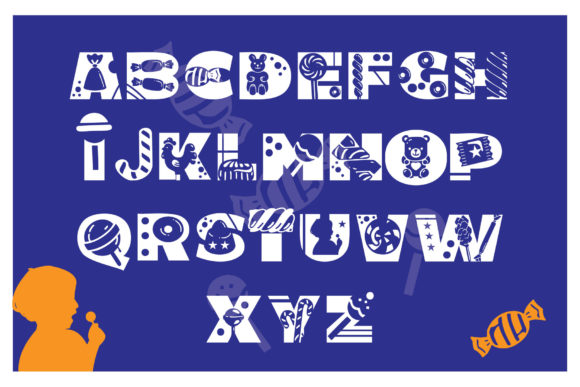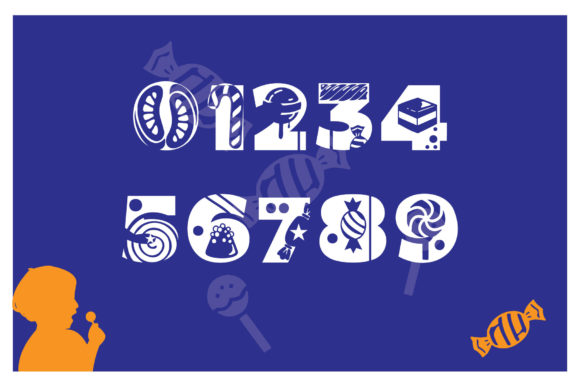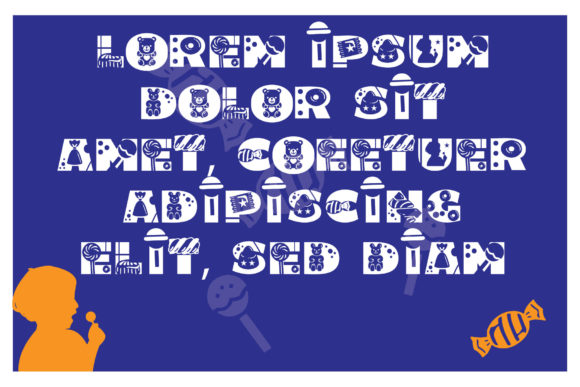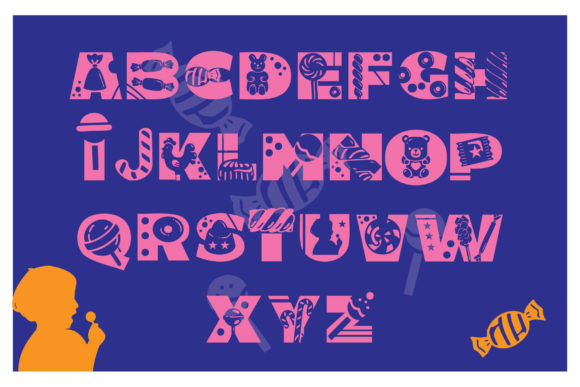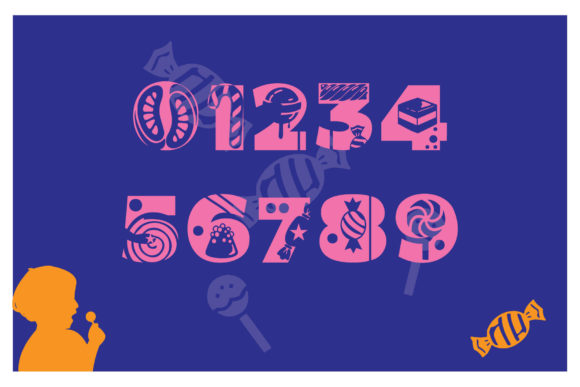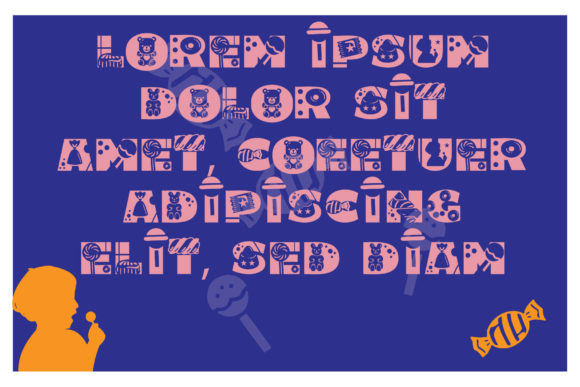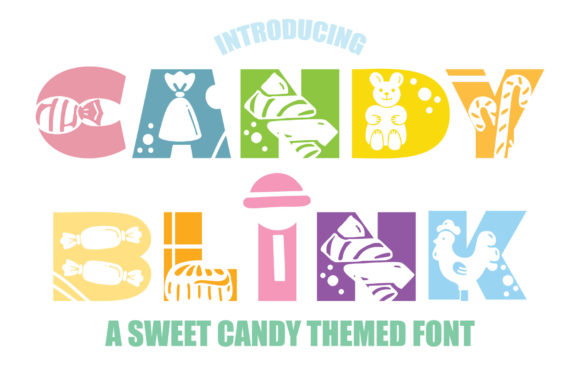
Candy Blink Font: The Sweetest Addition to Your Design Projects
Are you looking for a font that can add a touch of fun and playfulness to your designs? Look no further than the Candy Blink Font! This cool and thick lettered decorative font is perfect for a variety of friendly or casual designs, and can be used with confidence to add a professional touch to your projects.
What is Candy Blink Font?
Candy Blink Font is a unique and eye-catching font that features thick, bold letters with a playful and whimsical feel. Its distinctive design makes it stand out from more traditional fonts, and its versatility ensures that it can be used in a wide range of design projects. Whether you’re creating a logo, a poster, or a social media graphic, Candy Blink Font is the perfect choice.
Key Features of Candy Blink Font
- Cool and Thick Lettered: The font features thick, bold letters that are sure to grab attention.
- Decorative: The font has a decorative and playful feel that’s perfect for friendly or casual designs.
- Versatile: The font can be used in a wide range of design projects, from logos and posters to social media graphics and more.
- Easy to Read: Despite its bold and playful design, the font is easy to read and understand.
Why Use Candy Blink Font?
There are many reasons why you should consider using Candy Blink Font in your design projects. Here are just a few:
- Adds a Touch of Fun: The font’s playful and whimsical design adds a touch of fun to any project.
- Perfect for Friendly or Casual Designs: The font is ideal for designs that require a friendly or casual tone, such as social media graphics, posters, and flyers.
- Stand Out from the Crowd: The font’s unique design ensures that your project will stand out from the crowd and grab attention.
- Professional Results: Despite its playful design, the font can be used to create professional-looking results that are sure to impress.
How to Use Candy Blink Font
Using Candy Blink Font is easy! Here are a few tips to get you started:
- Pair with Other Fonts: The font pairs well with other fonts, so feel free to experiment with different combinations.
- Use in Headings and Titles: The font is perfect for headings and titles, where its bold and playful design can really shine.
- Add Color and Texture: Consider adding color and texture to your design to really make the font pop.
Design Ideas Using Candy Blink Font
- Social Media Graphics: Use the font to create eye-catching social media graphics that are sure to grab attention.
- Posters and Flyers: The font is perfect for posters and flyers, where its bold and playful design can really shine.
- Logos and Branding: Consider using the font in your logo or branding materials to add a touch of fun and playfulness.
- Crafting and DIY Projects: The font is also perfect for crafting and DIY projects, such as signs, banners, and other decorative items.
In conclusion, Candy Blink Font is a cool and thick lettered decorative font that’s perfect for a variety of friendly or casual designs. Its unique and eye-catching design makes it stand out from more traditional fonts, and its versatility ensures that it can be used in a wide range of design projects. Whether you’re a designer, crafter, or DIY enthusiast, Candy Blink Font is sure to become a favorite addition to your design toolkit.